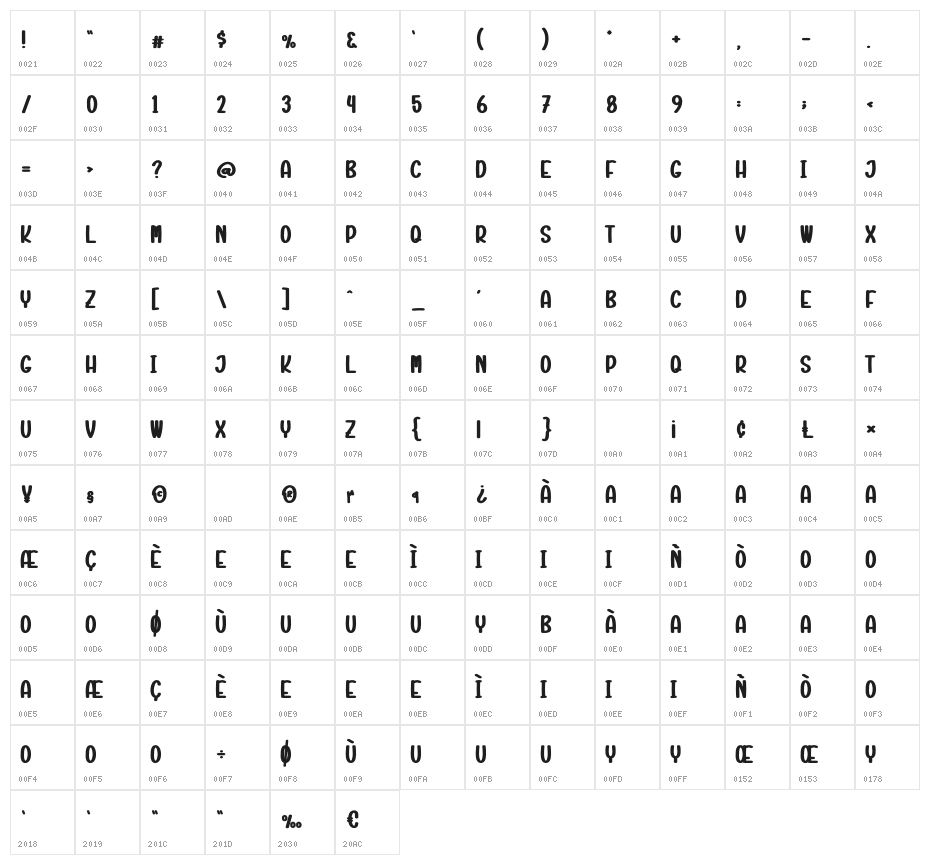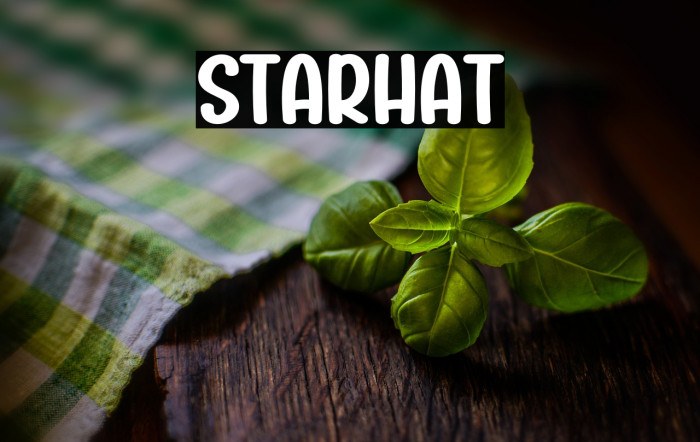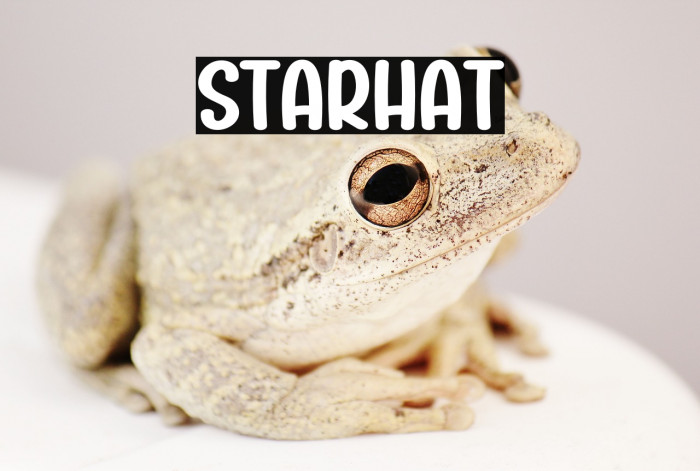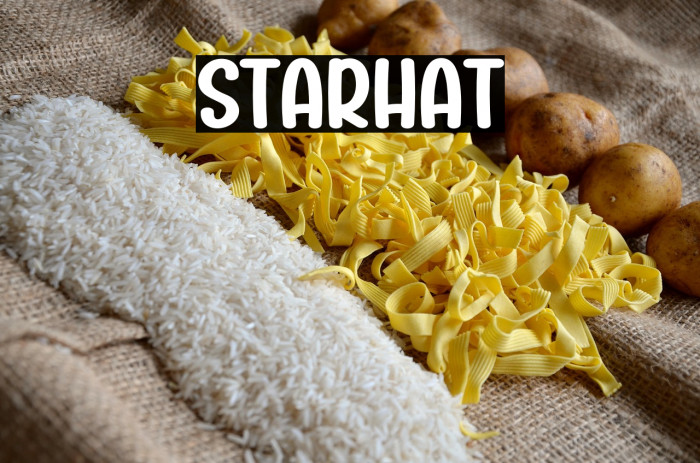
Starhat Font
Starhat Description
This font features a playful and bold design with rounded edges, giving it a friendly and approachable appearance. The characters are uniformly thick, contributing to a consistent and cohesive look. The uppercase and lowercase letters maintain a similar style, with slight variations in height and width that add to its charm. The numbers and special characters are designed to match the overall aesthetic, ensuring a harmonious appearance across all text elements. This font is ideal for projects that require a fun and engaging visual impact.
| Overall Style | Playful |
| Proposed Projects | Perfect for children's books, playful branding, posters, and casual invitations. |